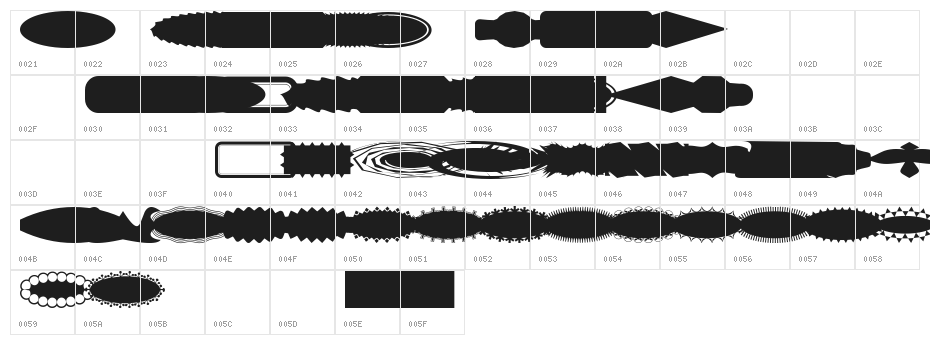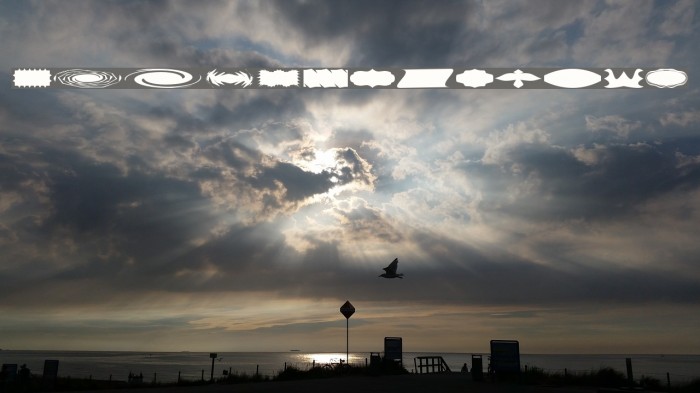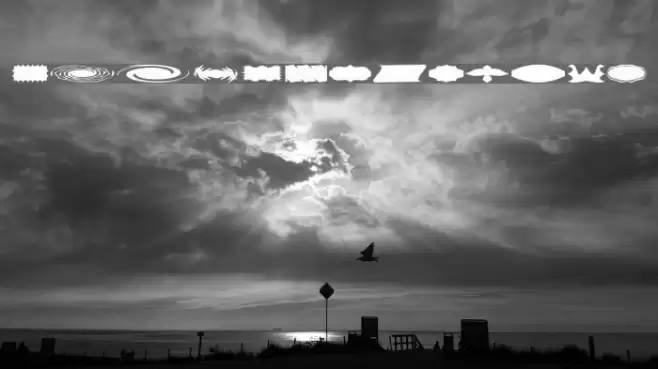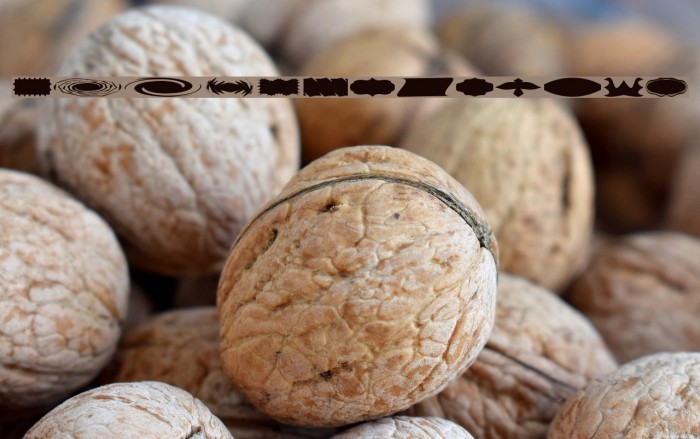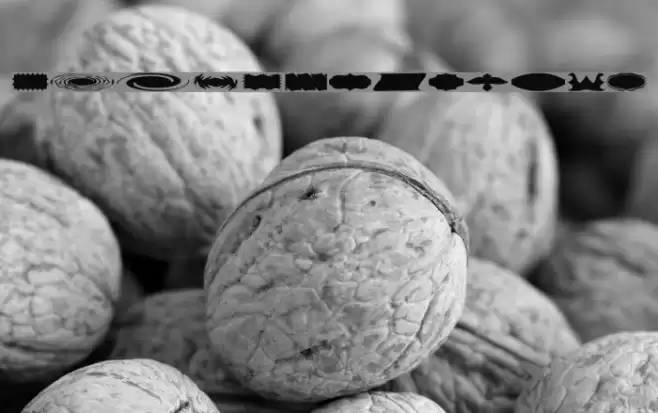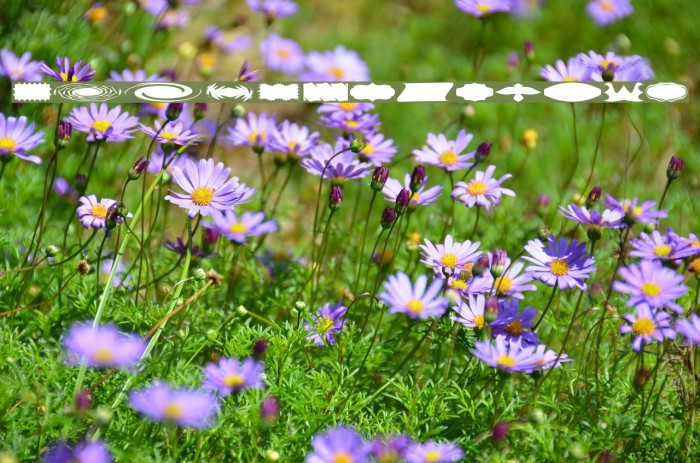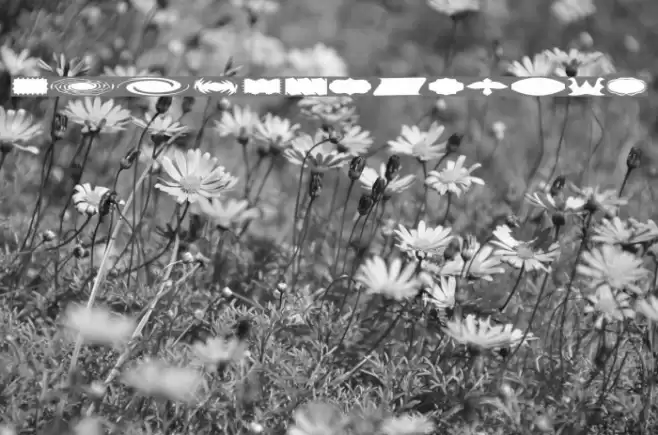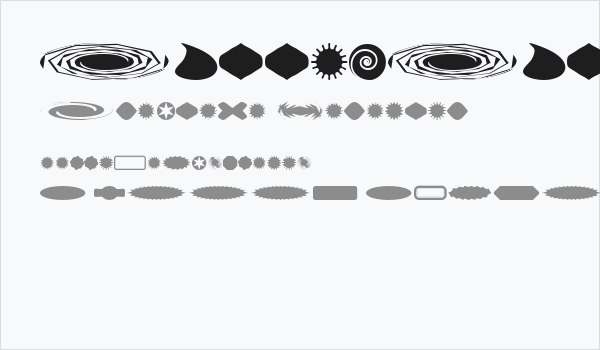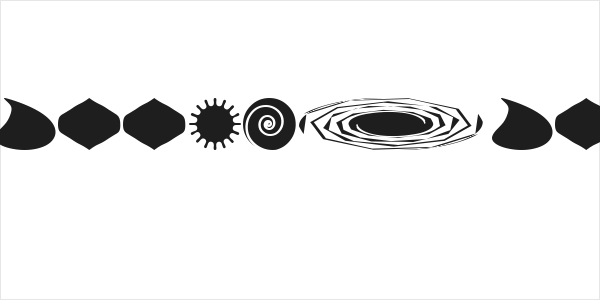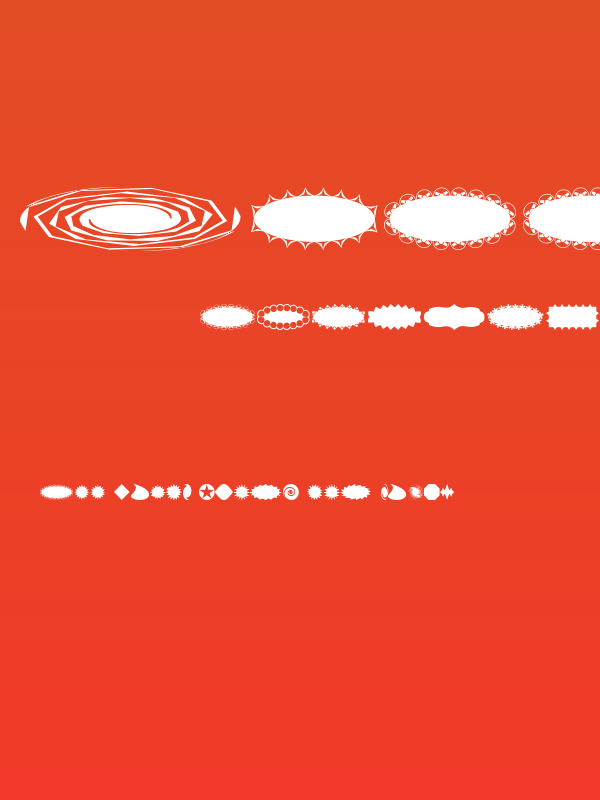
ButtonButton Font
ButtonButton Description
A decorative display typeface composed entirely of bold, abstract, and geometric shapes, including stars, bursts, ovals, diamonds, and various spiked or rounded forms, with no traditional alphanumeric characters present.
| Overall Style | Decorative, Playful, Abstract |
| Use Case | Accents, Borders, Graphic elements, Not for text |
| Proposed Projects | Graphic design accents, comic book effects, stickers, badges, playful branding, digital scrapbooking. |